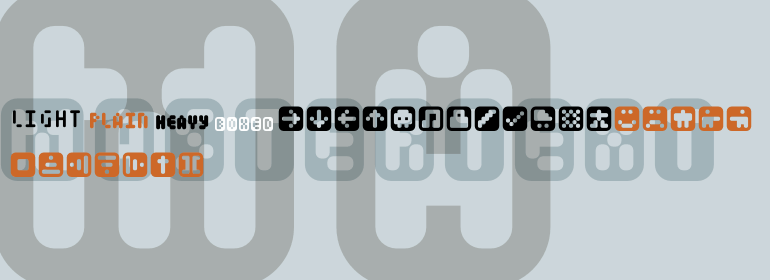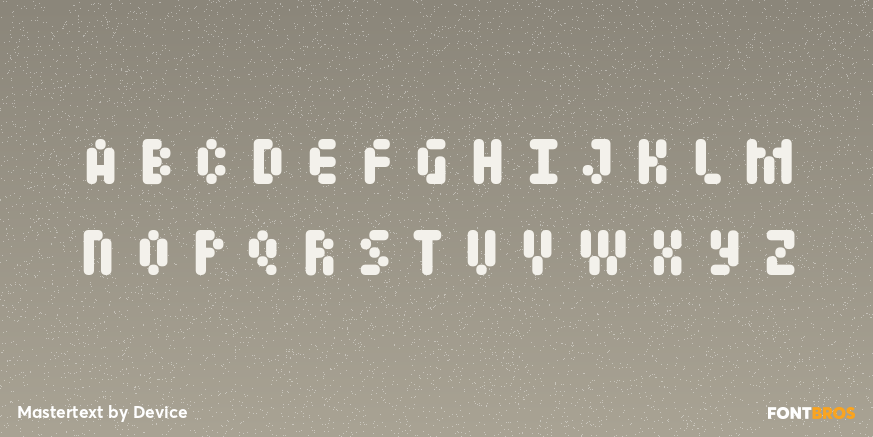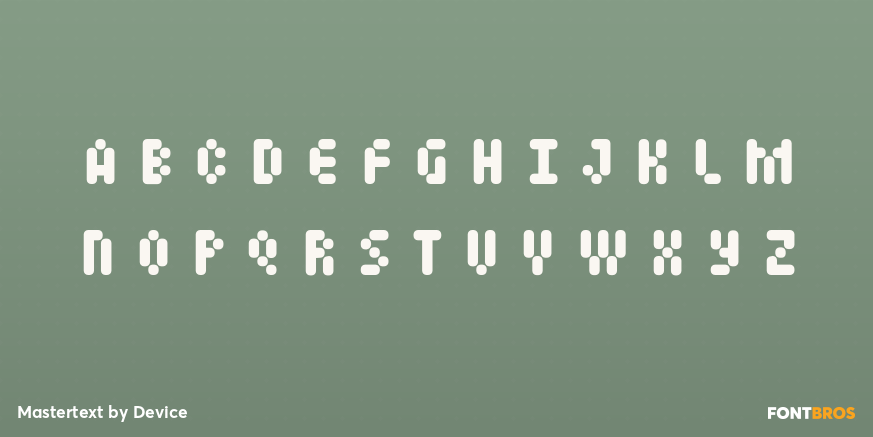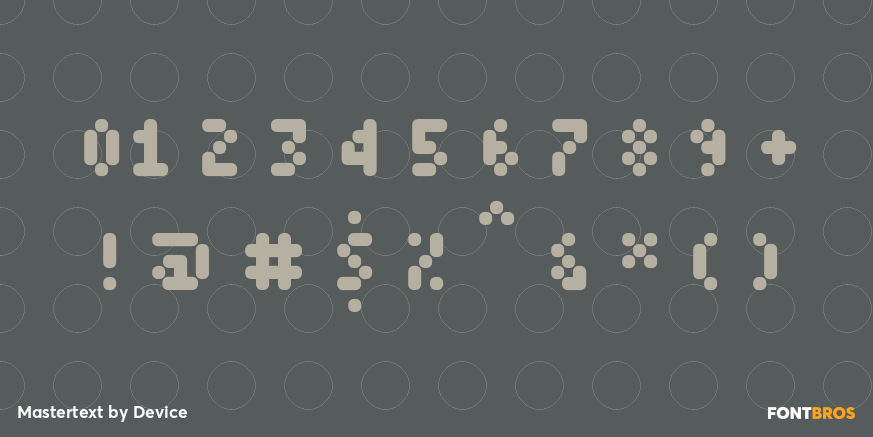
Mastertext
Font Family by Device Fonts
Mastertext is a futuristic display sans with a modular, grid-based look that feels equal parts digital interface and sci-fi signage. Its rounded corners, segmented construction, and pixel-like geometry give it a bold, contemporary voice that can read as playful, technical, or deliberately system-driven depending on the style you choose.
This family includes 6 styles by Device: Symbols One, Symbols Two, Plain, Light, Heavy, and Boxed. That range makes it useful for striking headlines, poster work, branding, packaging, apparel graphics, and other display settings where a crisp techno character can do the heavy lifting.
With options that move from cleaner text forms to boxed and symbol-driven variations, it offers plenty of room for building layered identities, graphic systems, and high-contrast compositions. If you want a type family that brings a sleek digital edge without losing a sense of fun, this one has a distinctive visual rhythm.